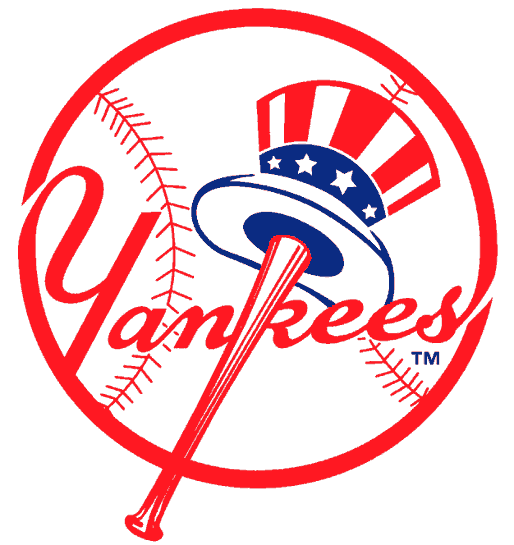
Anyone know of a font similar to the script the Yankees use? I'm working on a project that calls for something Yankee-esqe, and I'm sure their actual script isn't available anywhere, so I just want something similar. The "Y" seems to be the hardest thing to get close to.
i looked around for you and I cant really find anything...you could get the font close and hand modify the Y and it would look alright